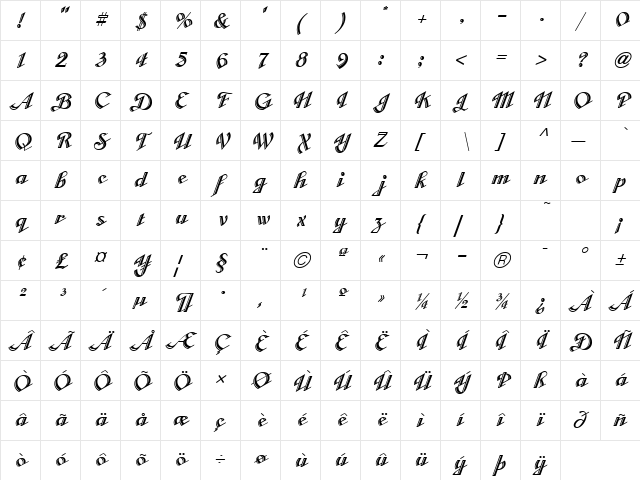
Cabarga Curs ICG Regular Font Preview
Cabarga Curs ICG Regular
Cabarga Curs ICG Regular Font Details
Design Context for Cabarga Curs ICG Typeface
Cabarga Curs ICG is a composed and adaptable typeface that performs quietly and consistently across a wide range of design contexts.